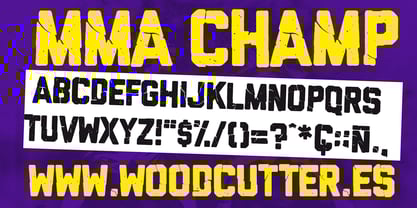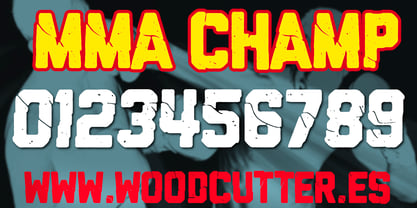
MMA Champ
by Woodcutter
The MMA Champ Font Family was designed by Jordi Manero and published by Woodcutter. MMA Champ contains 1 styles. More about this family
MMA CHAMP is an uppercase typeface with accents, crafted in a bold, brutalist style where each letter looks smashed, cracked, and shattered, as if made of glass broken during a fight. With a solid, aggressive, and fractured design, this font delivers a visual punch of strength and raw attitude. The characters are blocky and compact, featuring splits, gashes, and jagged edges that simulate the impact of a direct hit in combat.
Ideal for headlines that demand attention, MMA CHAMP is the perfect choice for fight posters, heavy music covers, urban design projects, streetwear branding, or any layout where the message must be powerful, intense, and unapologetic. This font doesn’t ask permission—it crashes into the scene.
Inspired by the world of Mixed Martial Arts, MMA CHAMP channels raw energy and visual chaos. Whether in bold black or over vibrant backgrounds, this typeface turns any word into a visual explosion of strength and rebellion.
Designers: Jordi Manero
Foundry: Woodcutter